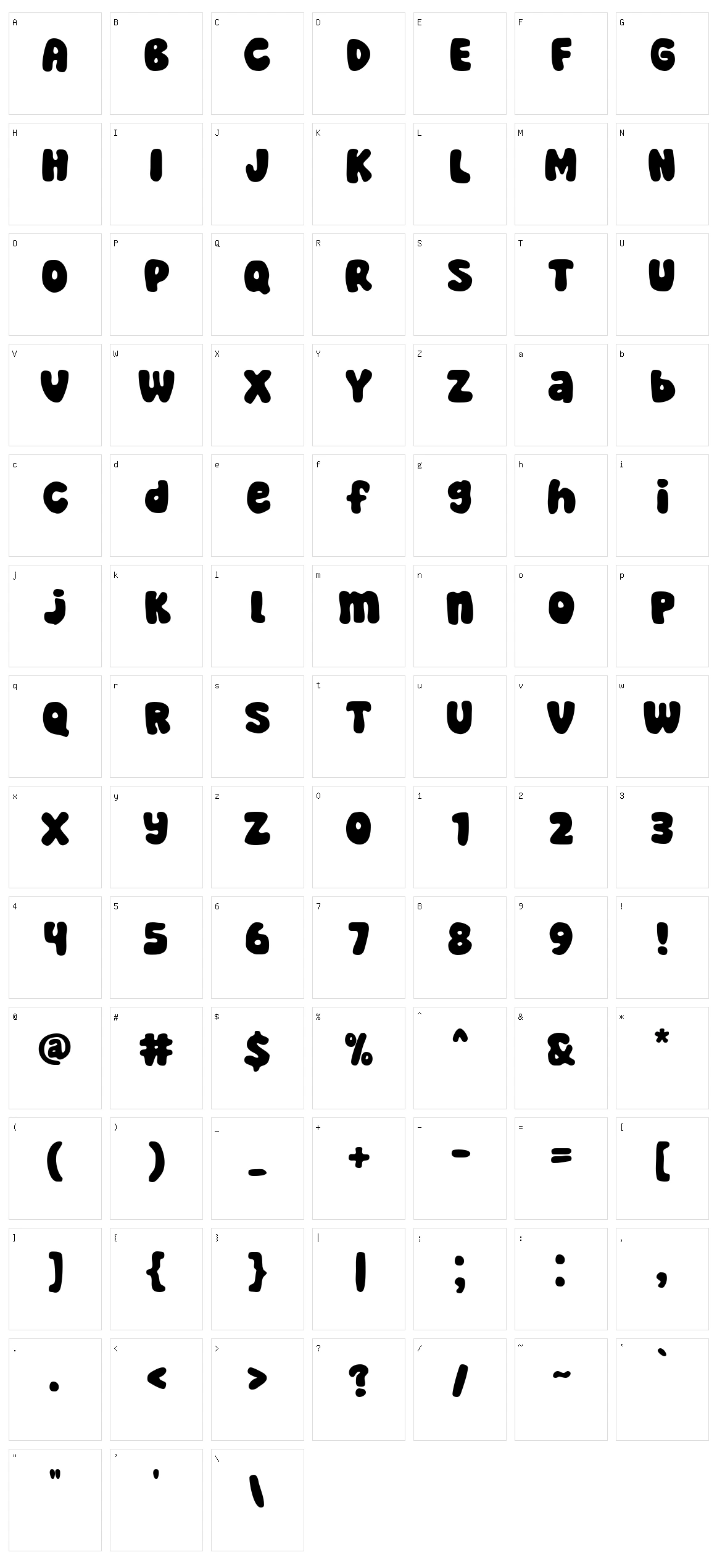
The free font Super Enjoy is carefully designed by fsuarez913, showcasing a thoughtful balance of creativity and usability and falls under the Cartoon font style. When you download the ZIP file, it contains only 47.42 KB of font files, making it lightweight and quick to download. Please review the license details below to understand permitted usage and distribution rights. If license information is not available, we recommend using this font for personal projects only or contacting the author directly for commercial usage permissions.